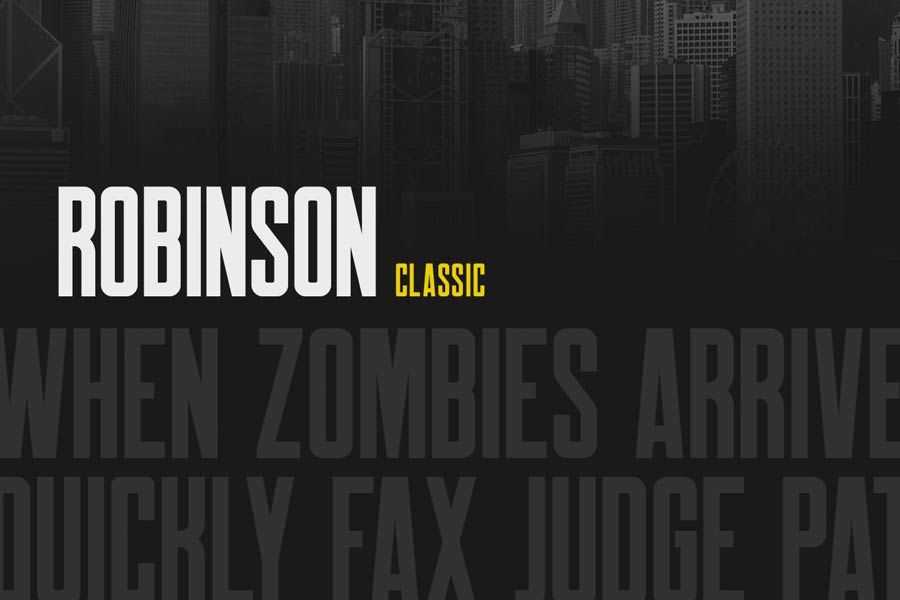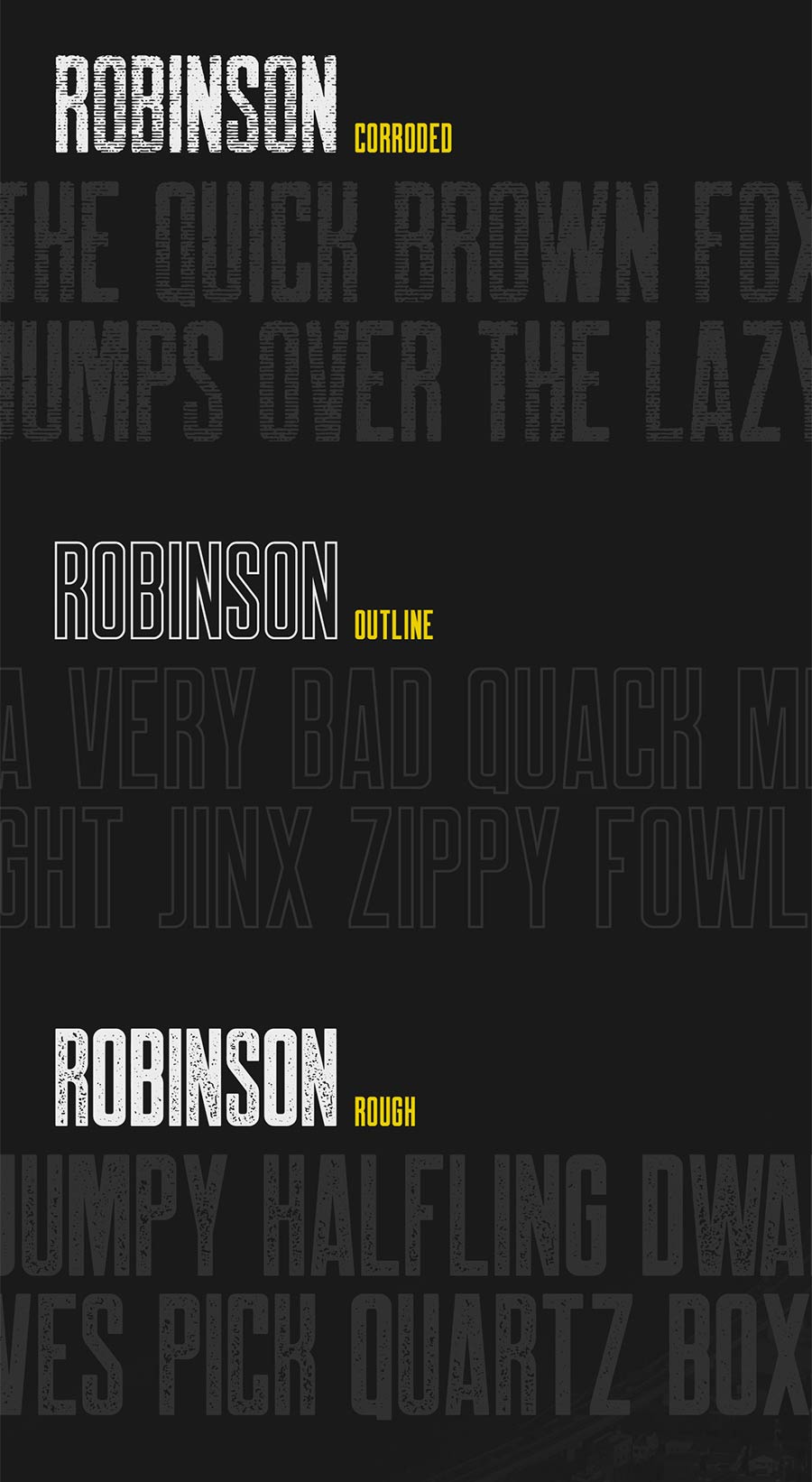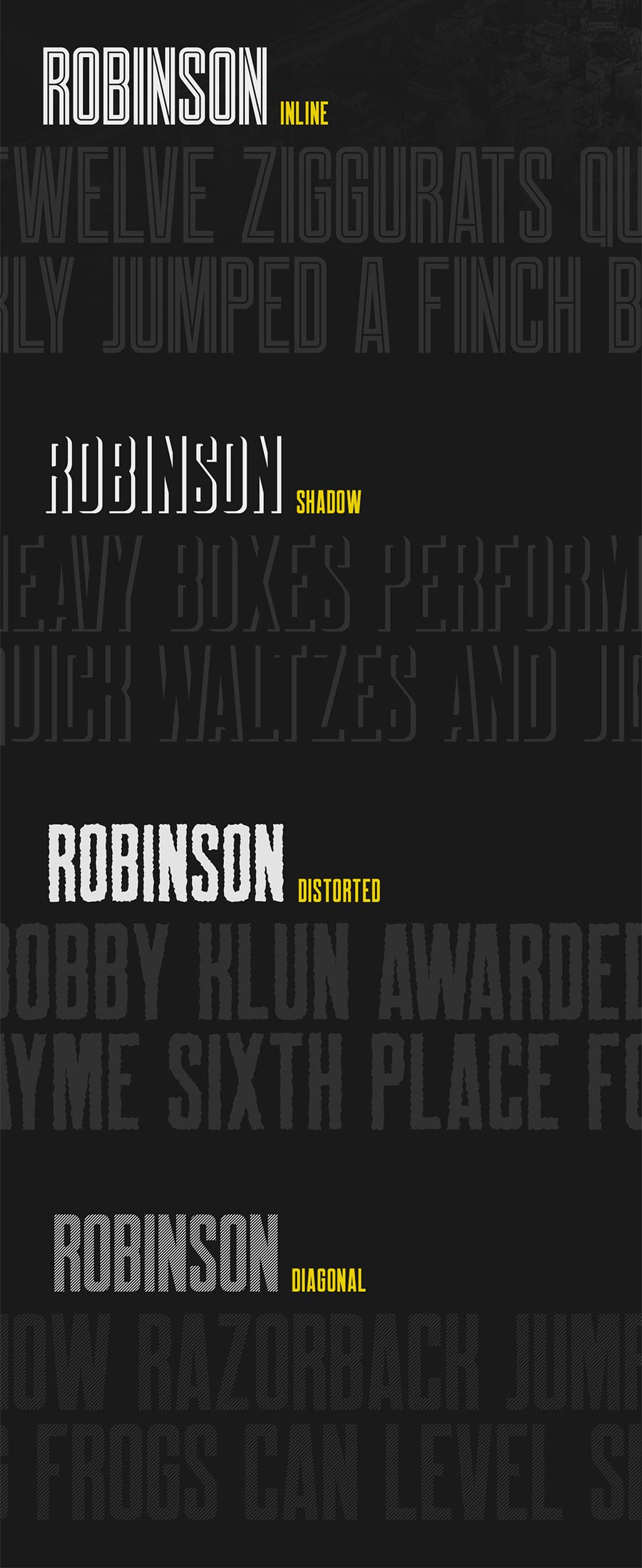
Robinson is a classic condensed display font that is free to download for your personal projects. It comes with a huge range of styles, a total of 8 of them, with some of them accompanied with the oblique version. Certainly you can mix and match the font styles to create the design you desire.